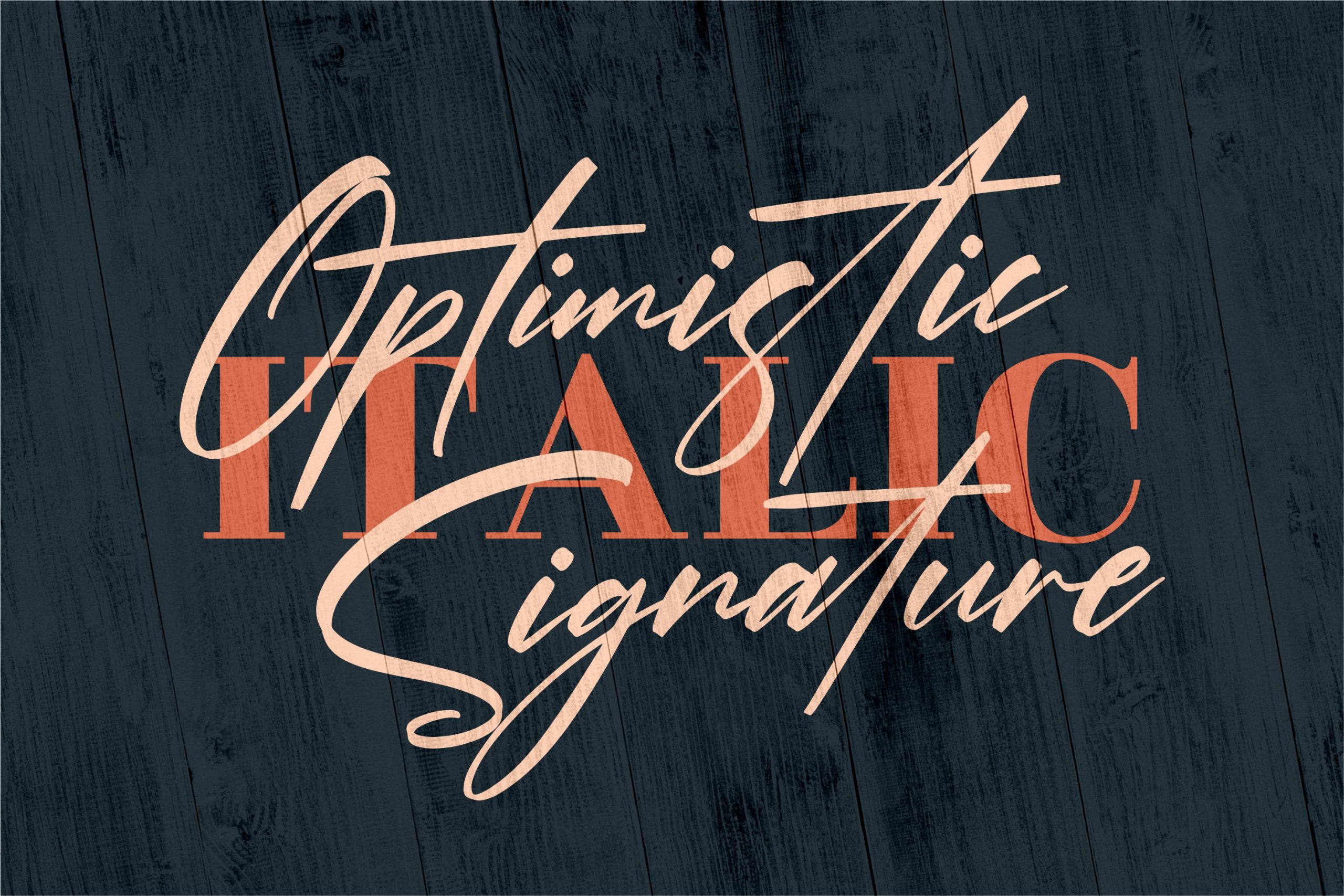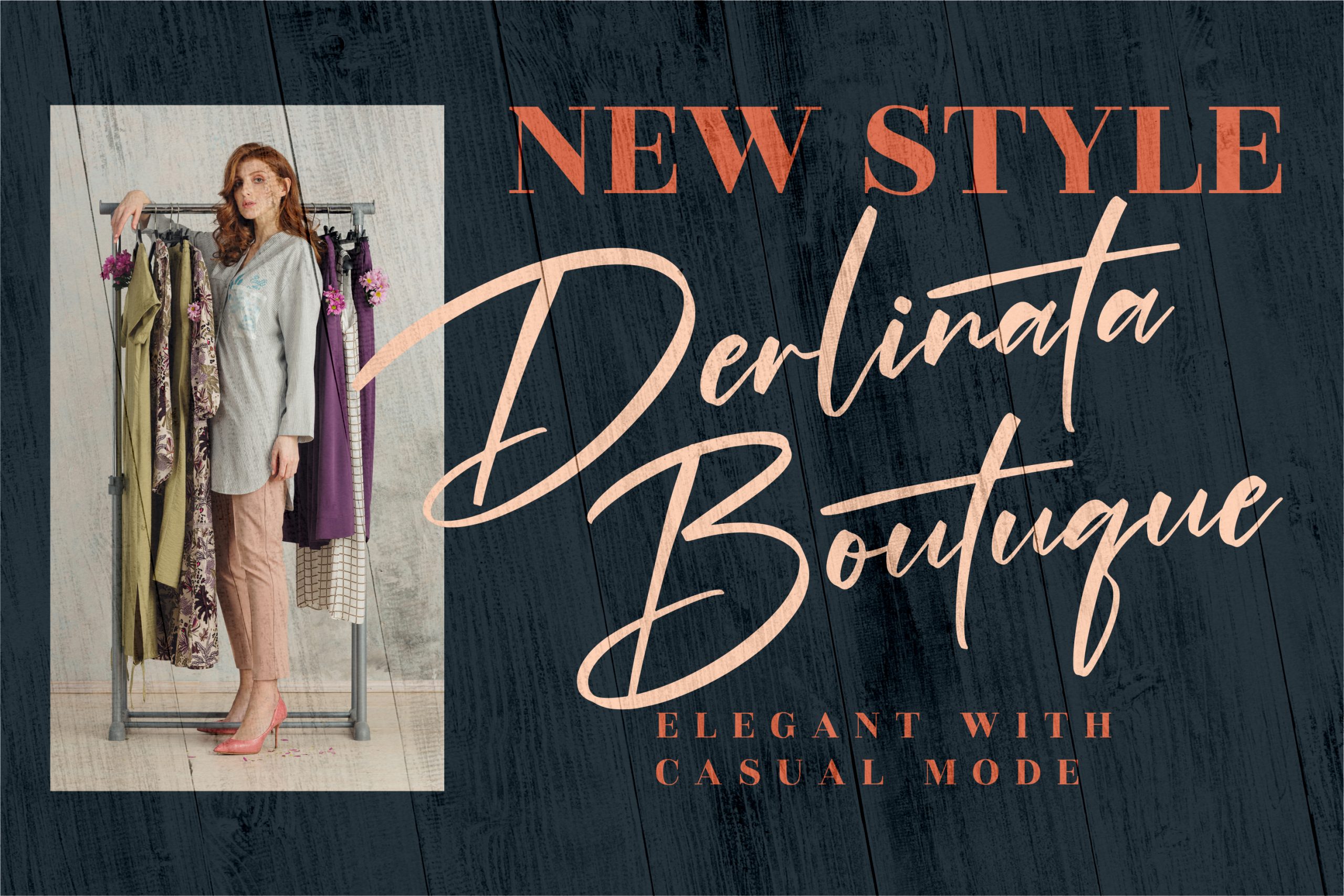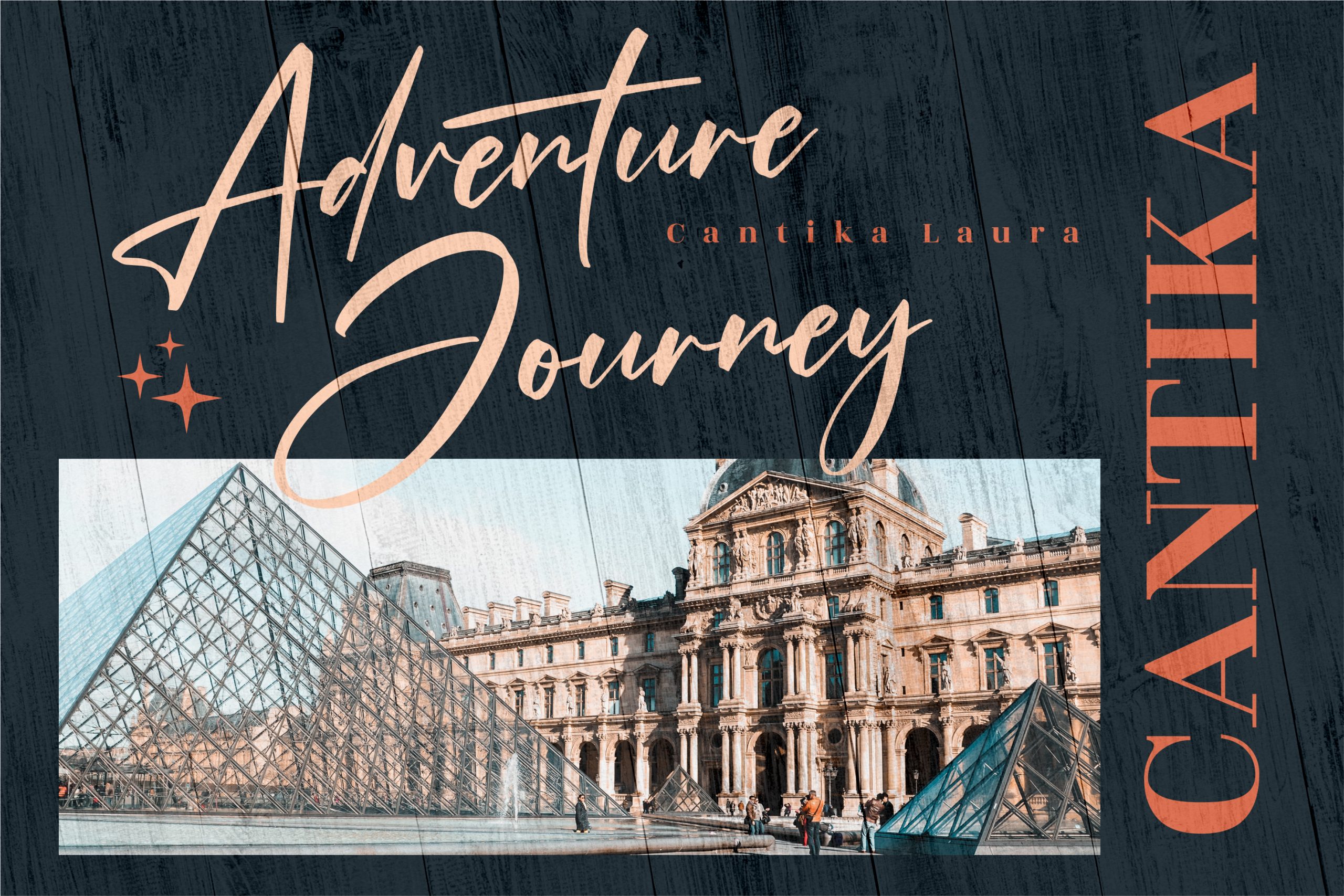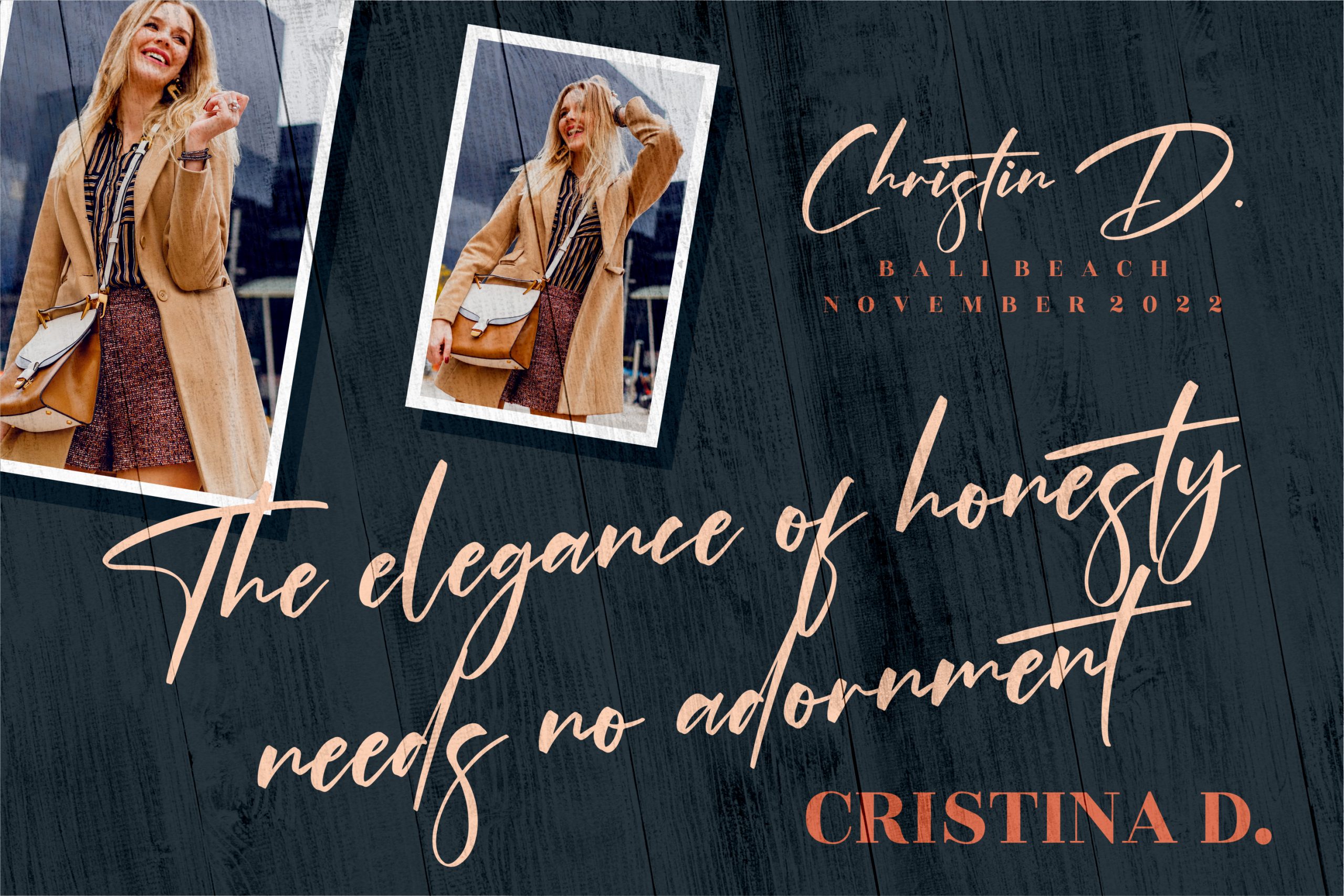
Optimistic Signature Font
Optimistic Signature Font – Modern Signature Font, from Perspectype Studio, is a premium signature font, suitable for any projects such as: logos, branding projects, homeware designs, product packaging, mugs, quotes, posters, shopping bags, t-shirts, book covers, name card, invitation cards, greeting cards, label, photography, watermark, special events, and all your other luxury projects that need a premium signature taste.